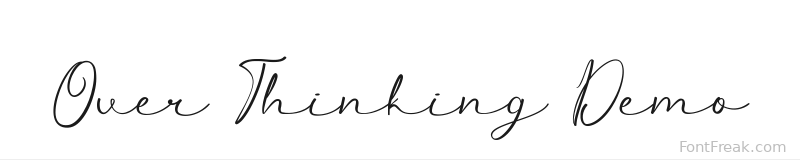
Over Thinking Demo
Over Thinking Demo is a beautifully crafted script font designed by Noah Type, characterized by its elegant and fluid letterforms. This font falls into the script category, showcasing a handwritten style that exudes both creativity and sophistication. The strokes are delicate, with varying weights that provide a pleasing contrast, making the letters appear both dynamic and graceful. The generous spacing between the characters enhances readability while maintaining an airy and light aesthetic, perfect for a variety of design projects.
Ideal for a range of applications, the Over Thinking Demo font can elevate wedding invitations with its romantic flair, add charm to restaurant menus, and make striking headlines for fashion magazines or blogs. Its unique character also lends itself well to branding projects, especially for small businesses looking to convey a personal touch. Content creators will find this font particularly useful for social media graphics, where eye-catching typography can make all the difference in engagement.
Targeting graphic designers, small business owners, and content creators, Over Thinking Demo offers an appealing solution for those seeking to infuse their work with a personal and artistic vibe. Its versatility ensures it can be adapted to various styles and themes, making it a valuable addition to any designer's toolkit.
Overall, the Over Thinking Demo font stands out for its graceful elegance and distinct personality. It strikes the perfect balance between artistry and functionality, making it an excellent choice for anyone looking to create memorable designs. Don’t miss the opportunity to enhance your projects with this stunning typeface—experience the Over Thinking Demo font free download and let your creativity flourish.